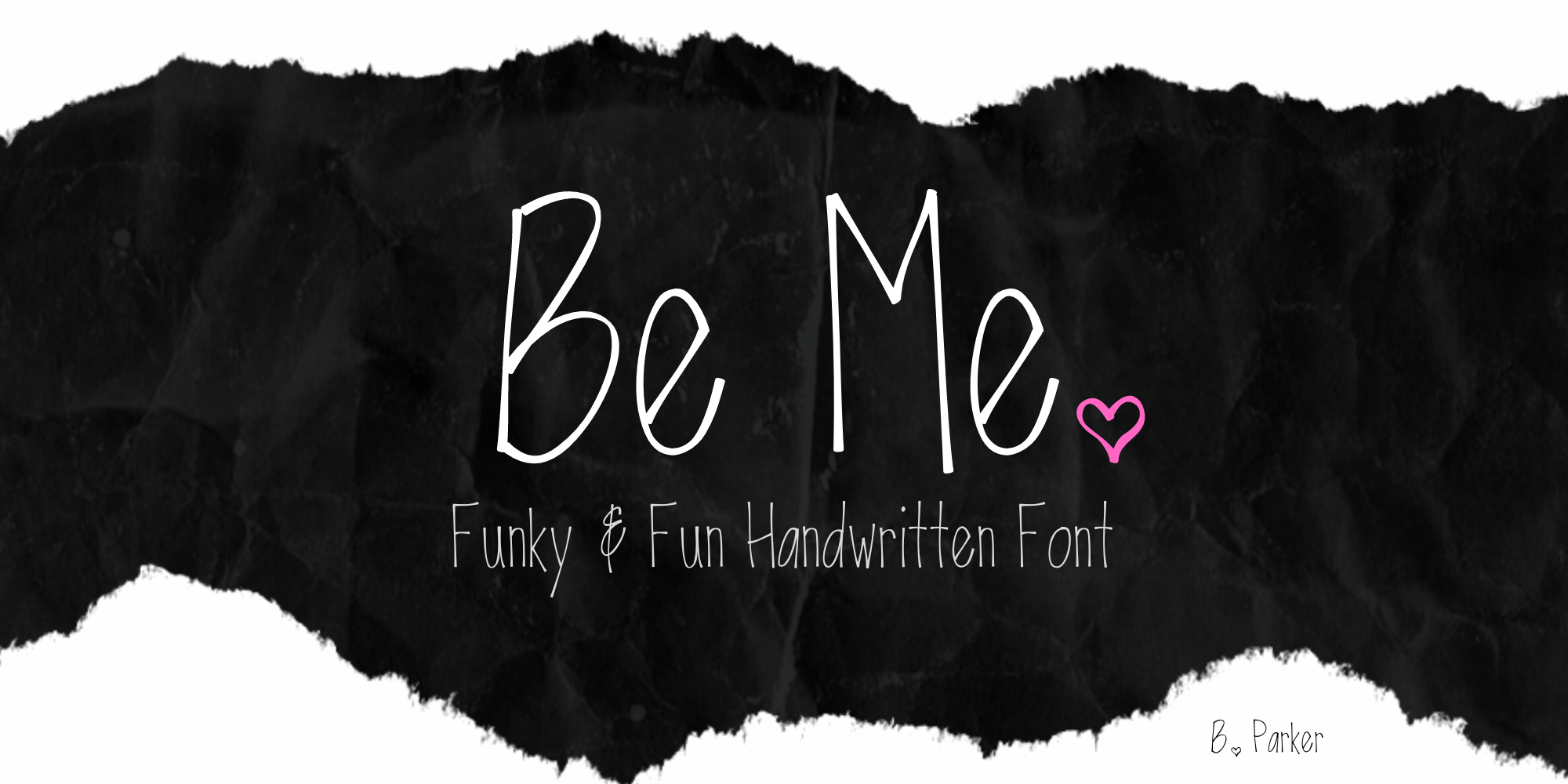
The Be Me Font is perfect for various design applications including personal empowerment branding, self-help book covers, motivational poster designs, life coaching materials, authentic lifestyle blogs, personal development graphics, inspirational quote designs, and individual expression campaigns. This empowering typeface works exceptionally well for brands promoting authenticity and projects requiring genuine personal connection with self-expression appeal.
What makes Be Me Font exciting is its authentic and empowering character that instantly encourages self-expression and celebrates individual uniqueness with inspiring confidence. The font features genuine letterforms with personal flair and authentic aesthetics that evoke feelings of self-acceptance, confidence, and the courage to be true to oneself. Its empowering styling and authentic appearance make it perfect for brands that want to inspire personal growth and connect with audiences seeking genuine self-discovery and authentic living experiences.
The Be Me Font family includes multiple weights and styles, offering designers flexibility for diverse personal empowerment applications. The family typically consists of regular, bold, light, and expressive variations, along with inspirational decorative elements and motivational ornaments, providing comprehensive coverage for projects that need both authenticity and visual impact across different self-expression contexts.
Whether you're working on personal development services, authentic lifestyle brands, or empowerment-focused campaigns, Be Me Font Free Download delivers the inspiring quality and visual authenticity that modern personal brand designers seek. The font's self-expression design combined with its excellent readability makes it an essential tool for creating compelling visual communications that celebrate individual uniqueness and bring the empowering spirit of authentic self-expression to life.